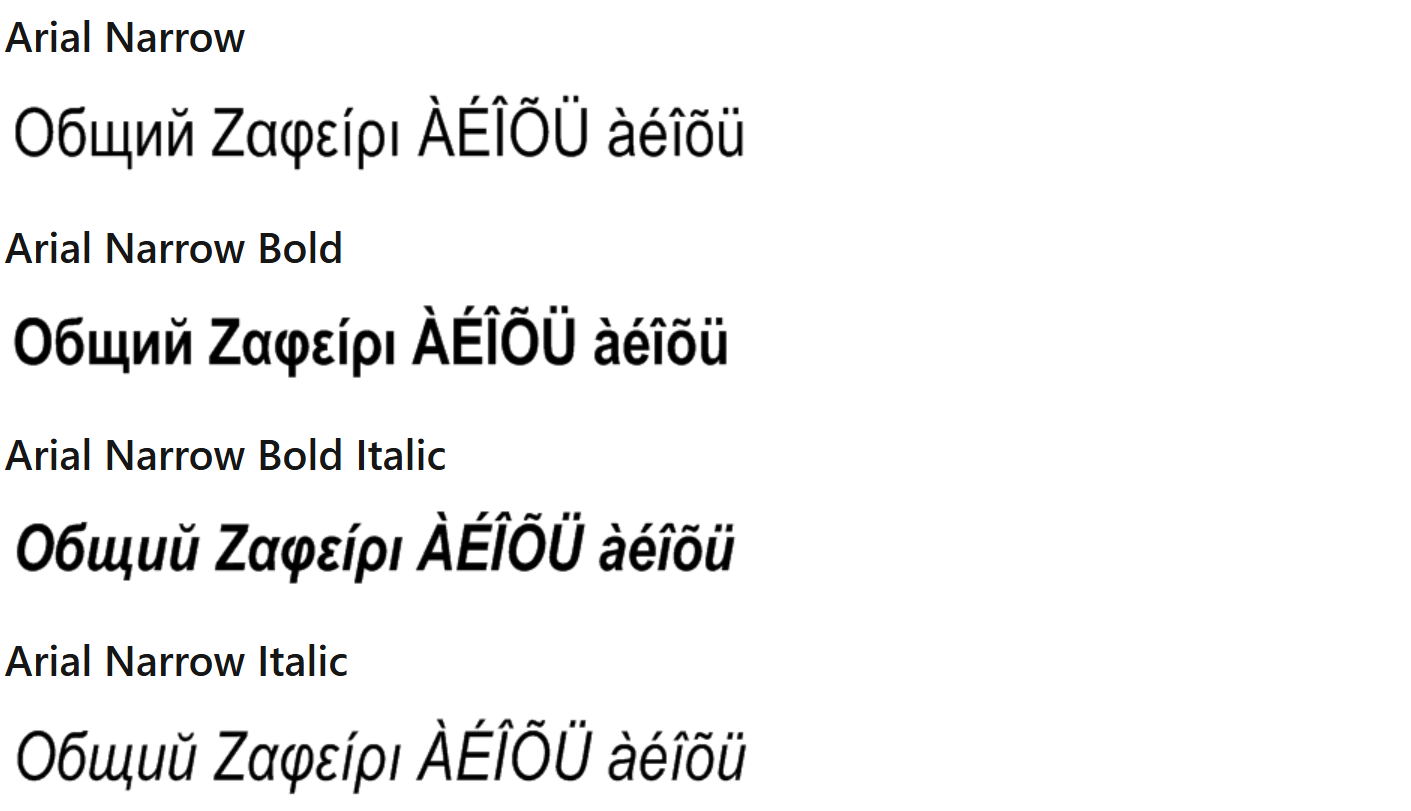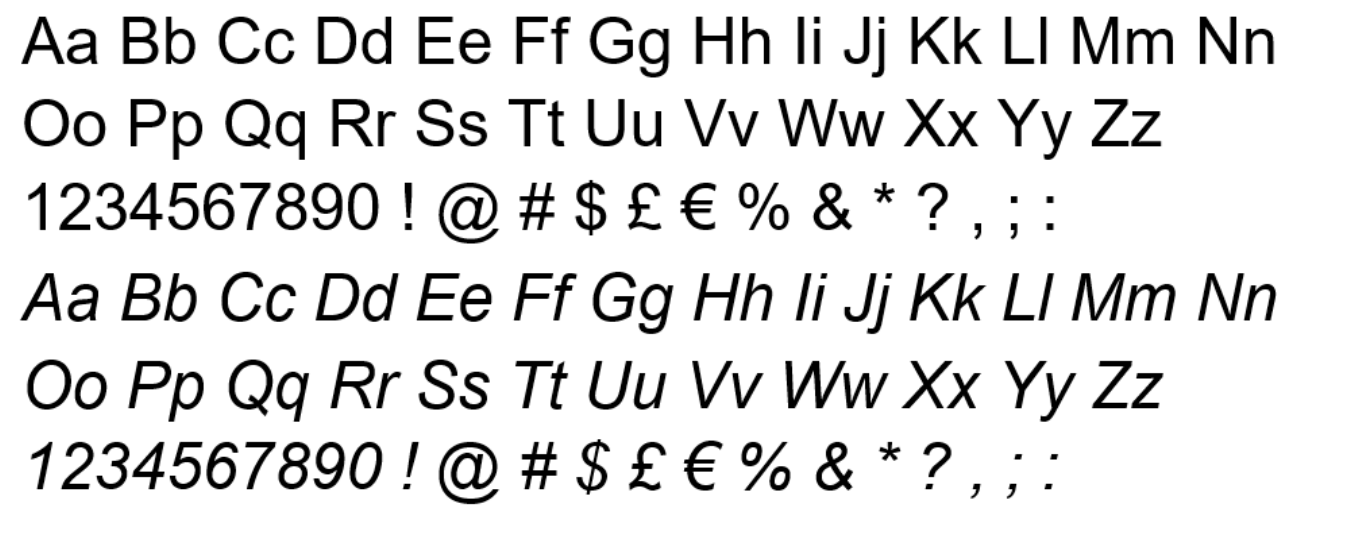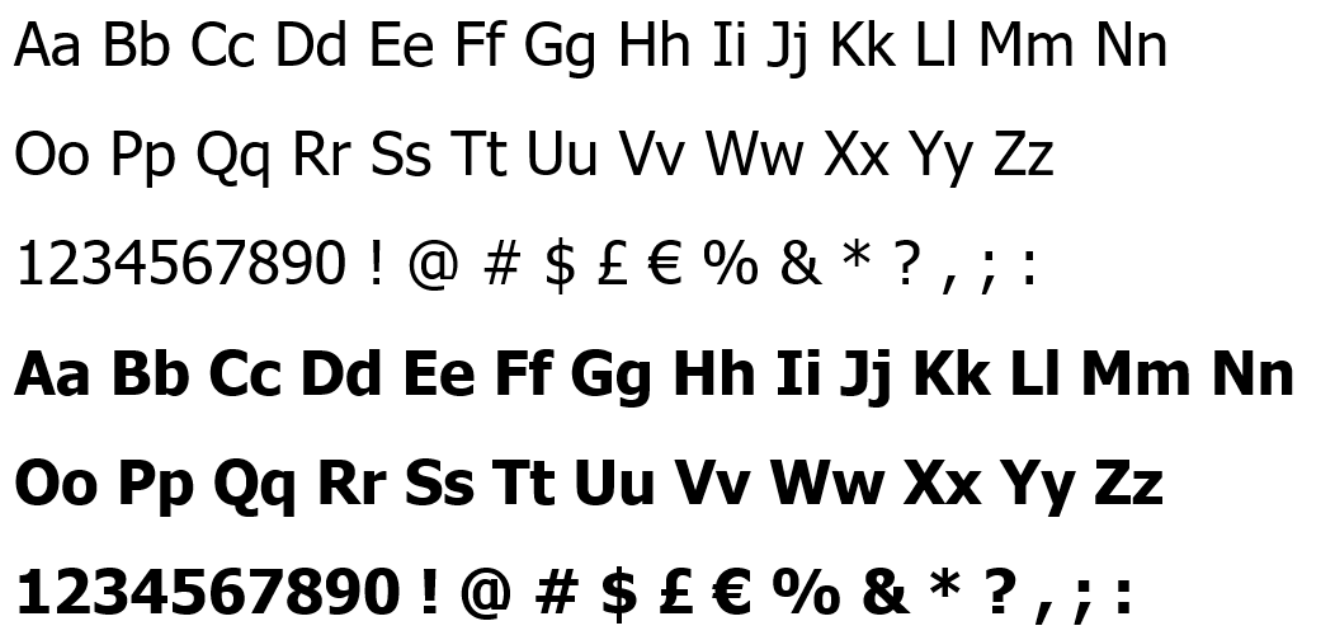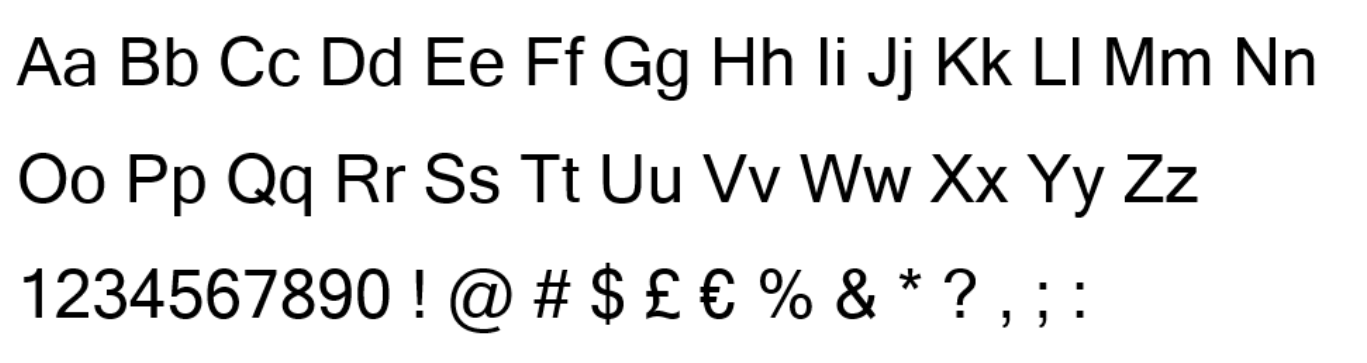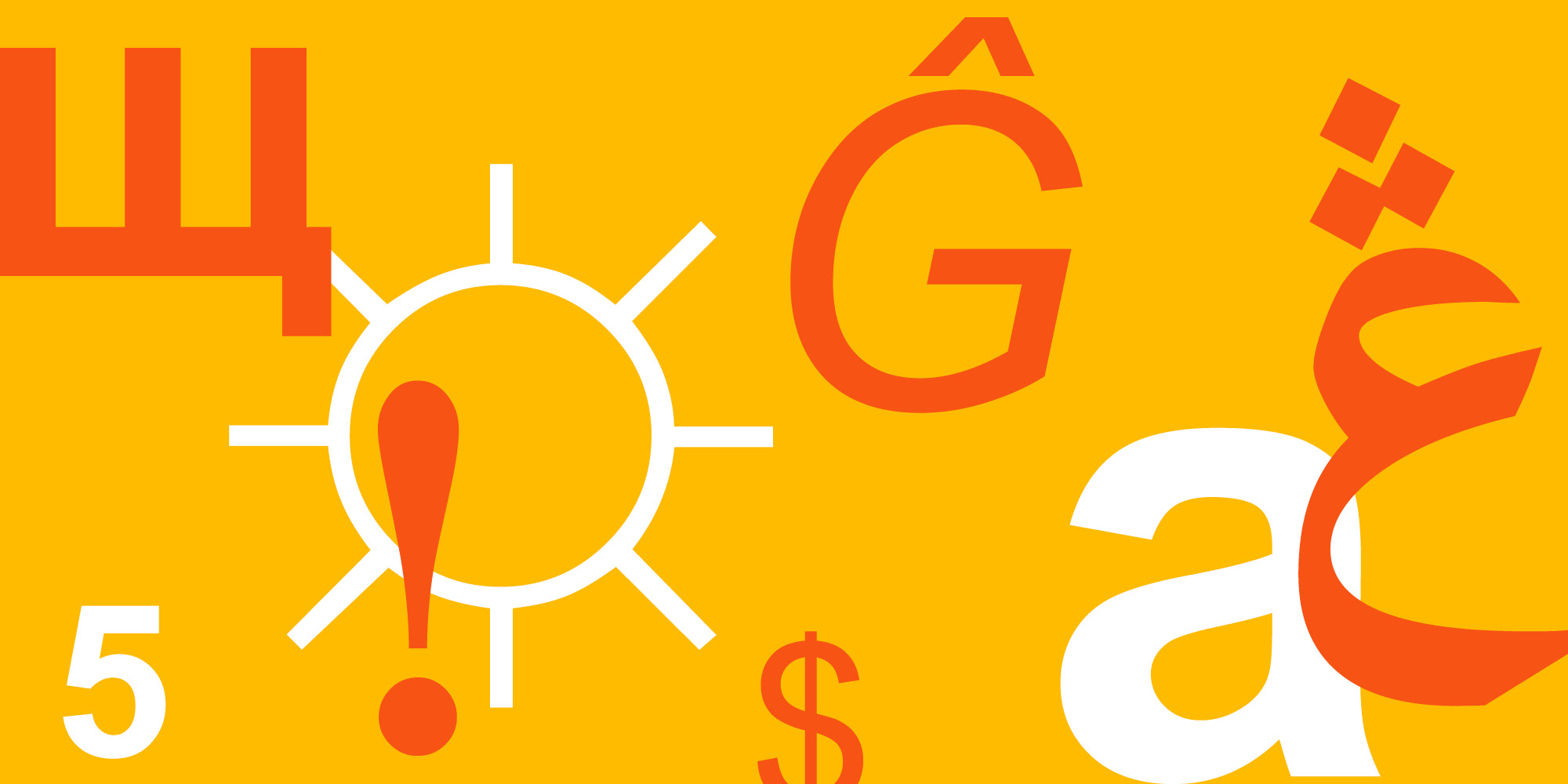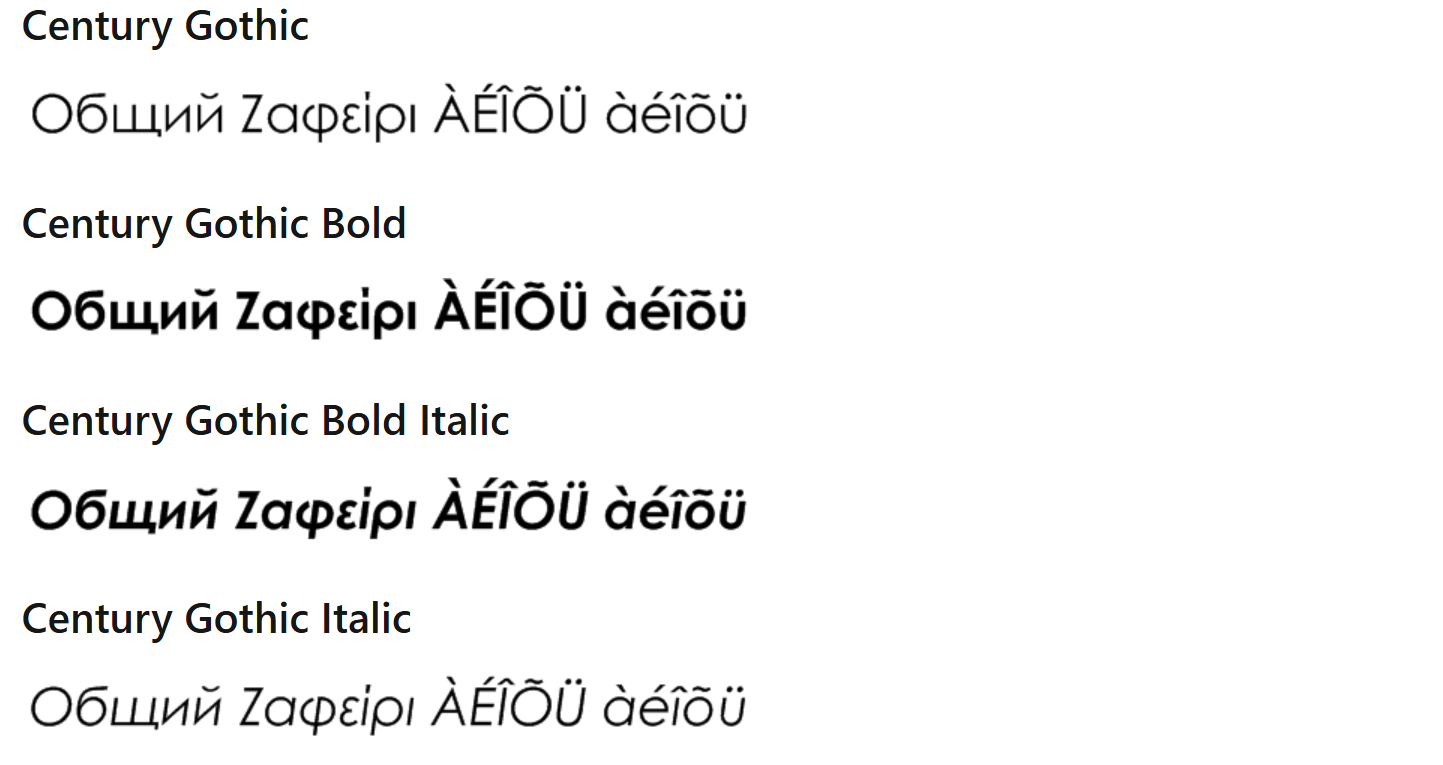
These typefaces could be ruining your brand's designs. Here's why
Some typefaces can make designers break out into a cold sweat. Just look at the endless debate over Comic Sans or Saturday Night Live's pillory of Avatar's infamous Papyrus logo.
But it's not only novelty typefaces that earn designers' opprobrium. Many fonts that are often seen as dependable, neutral fallbacks might not be as solid as people think. A web design studio has just revealed its "ten most-hated fonts", and they might surprise you.
The digital design and development studio Kraam's most-hated fonts in web design include such staples as Arial, Tahoma and Times New Roman: not because they're gimmicky but because they’re too familiar and often used without considering their subtle impact on readability, perception and user experience.
The studio has sought to explain its aversion by analysing the typefaces in detail, scoring each one against five key design criteria: proportions (balance and readability of letter shapes), stroke consistency (control and consistency of the line weight), apertures and spacing (how open and easy the characters are to read), distinguishability (how clearly similar characters can be told apart) and Structural consistency (how well the font works as a cohesive system).
The typefaces were scored out of 10 in each category for a maximum of 50 points. In the conclusion, many of the same issues come up repeatedly: cramped spacing, inconsistent proportions or an outdated feel, all of which can create a subconscious impact on the user.
01. Arial Narrow
Bottom of the pile is Arial Narrow, with a score of just 30 out of 50. Kraam's design team says the typeface's compressed character width limits the natural spacing that the eye relies on to scan text comfortably. This makes text look cramped, which can be detrimental when it comes to the experience of reading long passages on a website.
On smaller screens, the lack of spacing can cause characters to blur together, increasing effort and reducing clarity, both of which can impact engagement and time on page, Kraam warns.
Microsoft Sans Serif
Microsoft Sans Serif barely scores any better with just 31 points out of 50. The designers argue that its proportions and spacing lack refinement and make the typeface appear slightly unbalanced.
The team also suggest that the fact it was designed for older system environments can create an impact on the perceived quality of a website, making it feel dated or less polished.
Century Gothic
Scoring just a point higher is Century Gothic. The designers warn that its near-perfect circles and uniform strokes reduce the distinction between individual letterforms, which can create a feeling of repetition that makes text harder to process quickly. Its wide proportions also mean fewer words per line, which increases scroll depth and can break reading flow, especially on mobile.
4. Tahoma
Tahoma's sturdy letterforms and relatively tight spacing can create a dense appearance that lacks the openness that aids comfortable reading over longer stretches of text, Kraam says. This can feel overwhelming on content-heavy web pages, making text blocks feel visually heavy. It gets 33 points.
5. Arial
Arial has a reputation as a dependable neutral system font that's safe to fall back on for a wide range of uses when you want a clean, readable sans serif. But the designers warn that its versatility makes Arial feel generic and visually unremarkable, while it also lacks "subtle characteristics that help guide the eye or create rhythm across text".
The other typefaces analysed are Trebuchet MS (35/50), whose inconsistency is deemed to "subtly disrupt reading flow" and the classic serif Times New Roman (36/50), seen as a good choice for print use but criticised for creating friction when scanning on a website.
Verdana (37/50) is praised for its large x-height and generous spacing but judged to occupy more space than necessary, while Georgia (38/50) is seen as dated-looking. Candara (39/50) is slightly more highly rated but deemed to lack personality.
While some of the gripes might seem minor, the choice of typeface can have a significant influence on how users experience a website, including whether they trust its content and whether they stay on the site or leave.
“Typography is one of the most important parts of digital design because it directly affects how people consume information," Kraam’s Senior Designer, Keith Blues, says. "If text is hard to read or feels visually off, users won’t spend time figuring out why – they’ll just disengage."
He recommends testing typography across devices and screen sizes and prioritising open spacing and clear letterforms to ensure readability. Generally, he suggests avoiding condensed fonts for body text, mixing conflicting styles or defaulting to system fonts without considering brand identity.